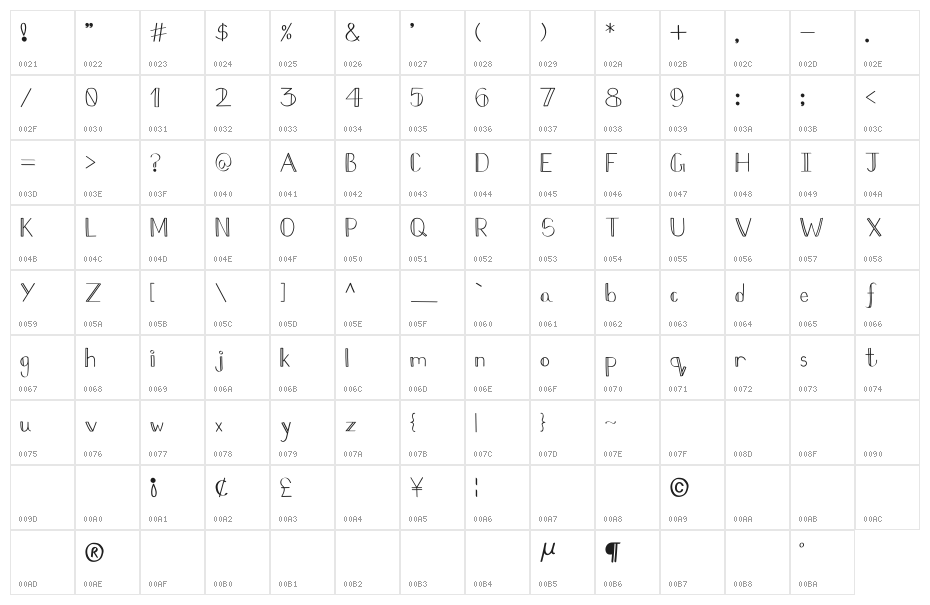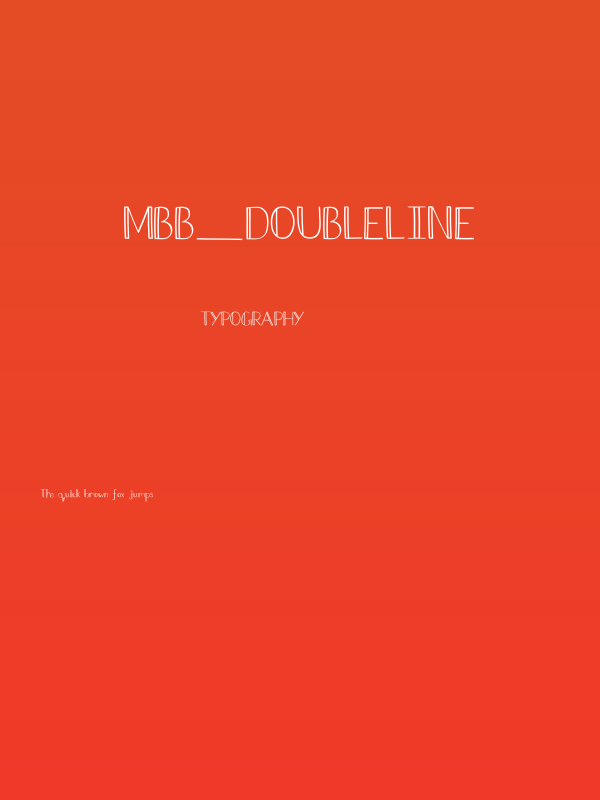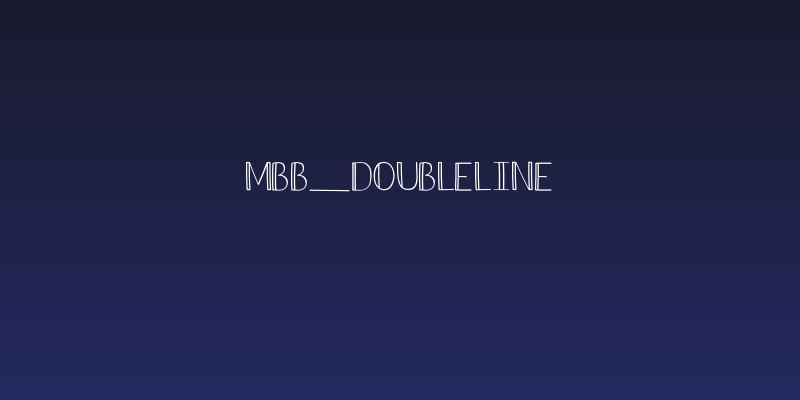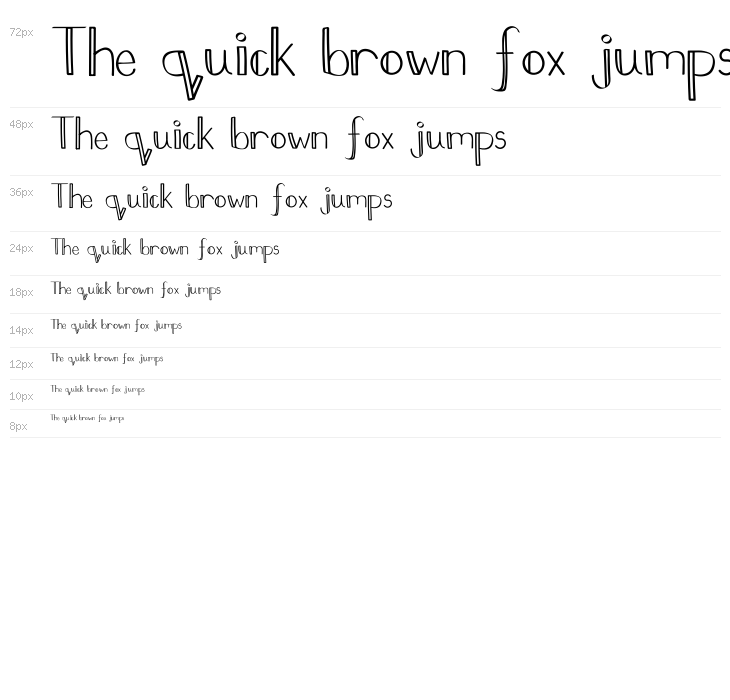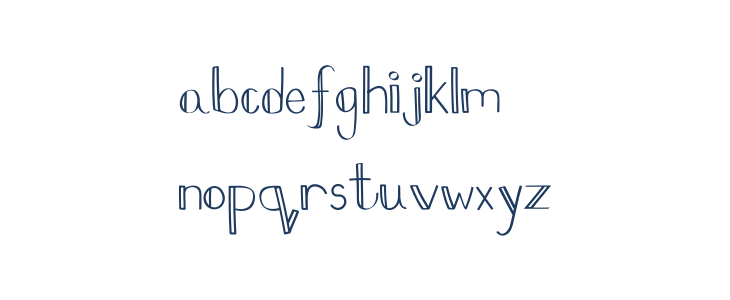
Mbb_Doubleline Font
Mbb_Doubleline Description
This font features a unique double-line style that gives it a playful and artistic appearance. The uppercase letters are tall and slender, with a consistent double-line running through each character, creating a sense of depth and dimension. The lowercase letters maintain the same double-line design, offering a cohesive look across both cases. Numbers and special characters are also designed with this distinctive double-line effect, ensuring uniformity throughout. The font's overall aesthetic is modern and creative, making it suitable for projects that require a touch of whimsy and originality.
| Proposed Projects | Ideal for creative projects such as posters, invitations, branding, and any design work that benefits from a unique and artistic font style. |